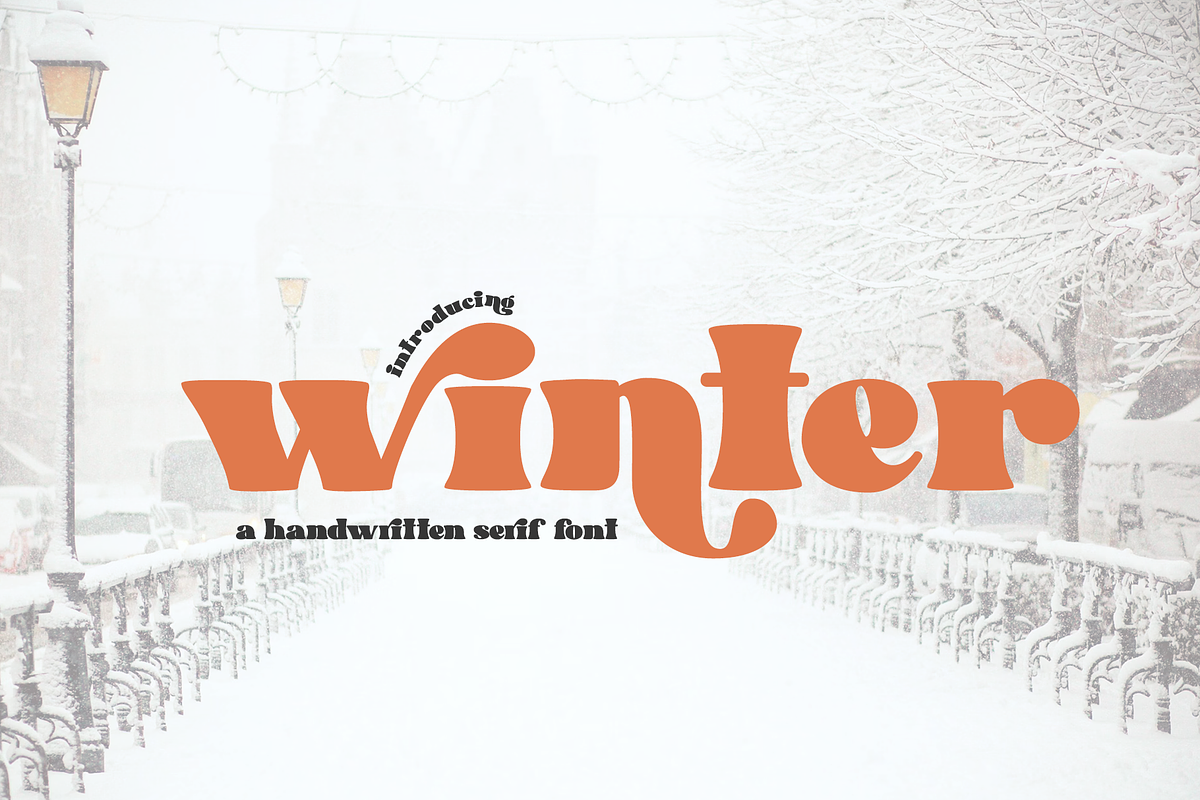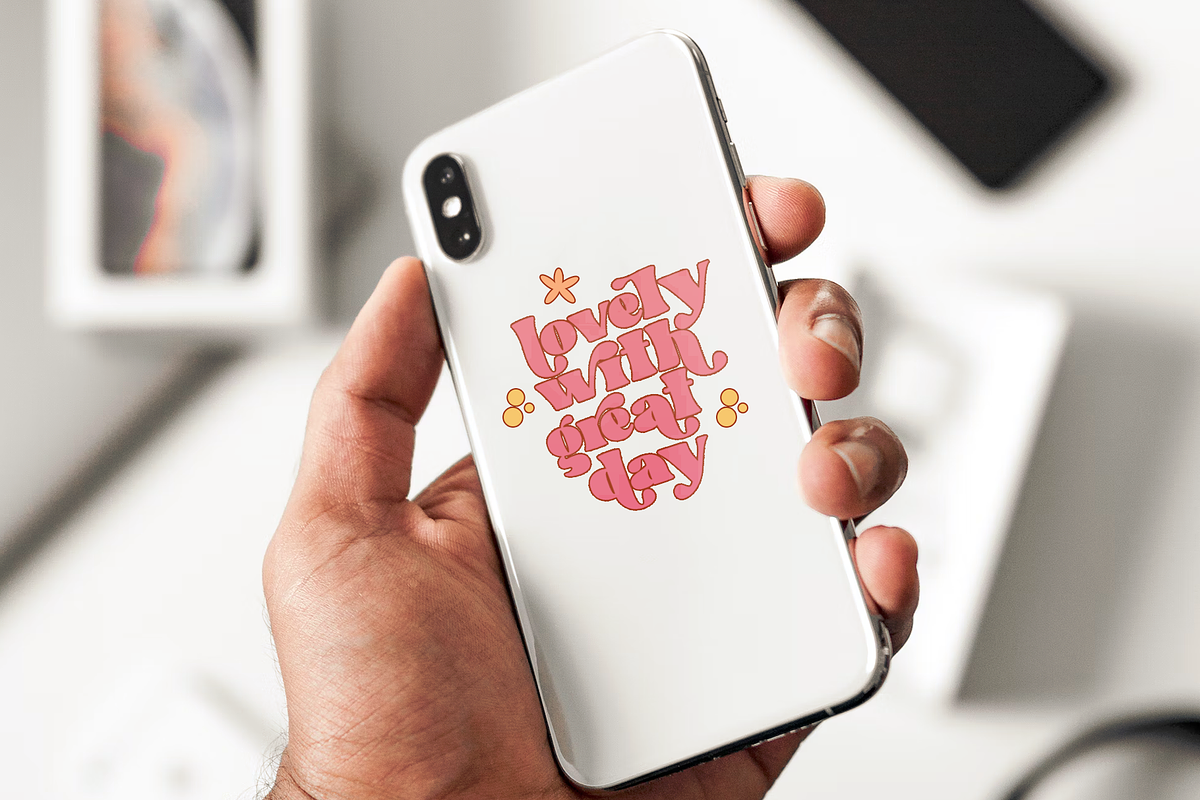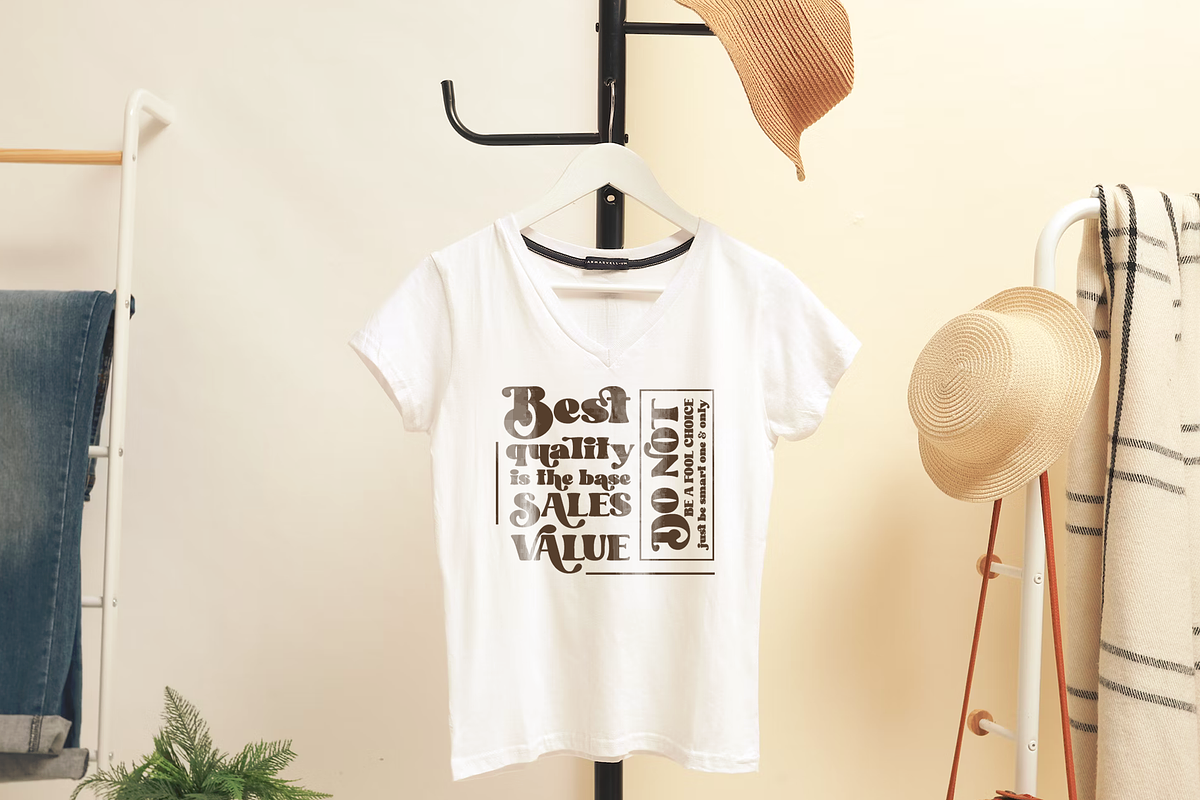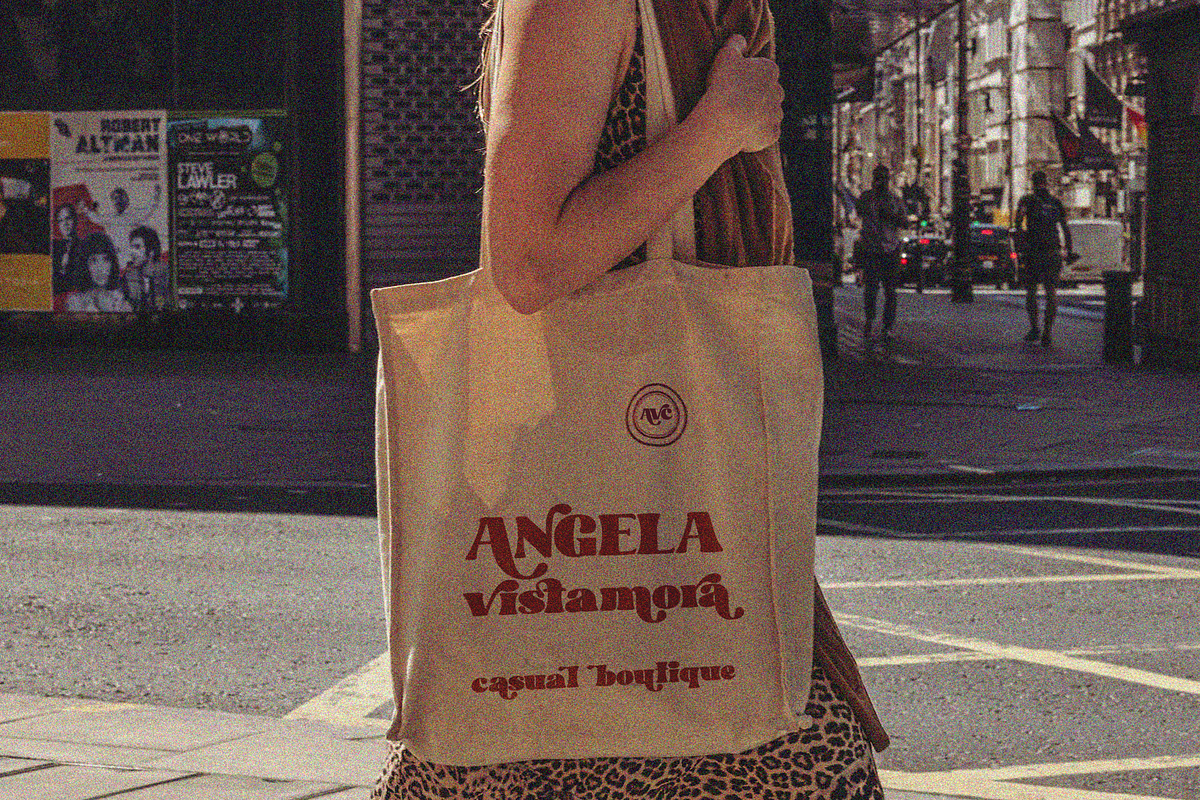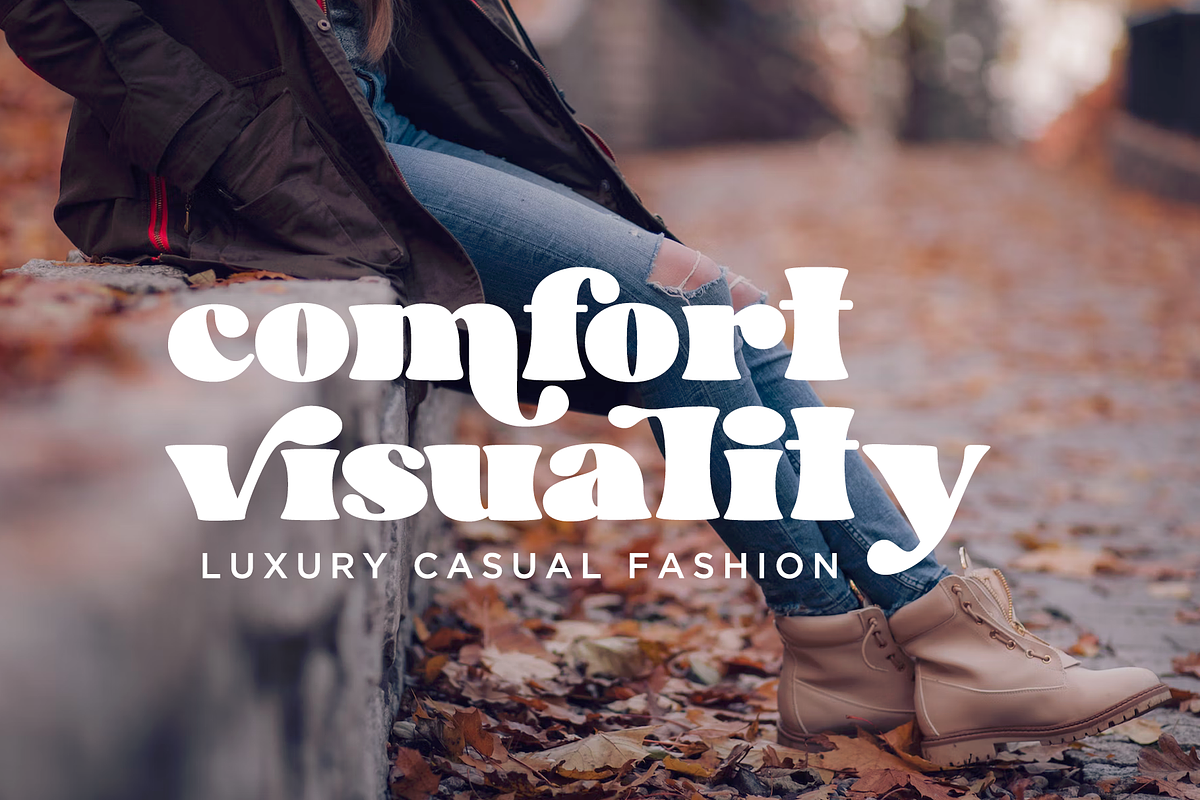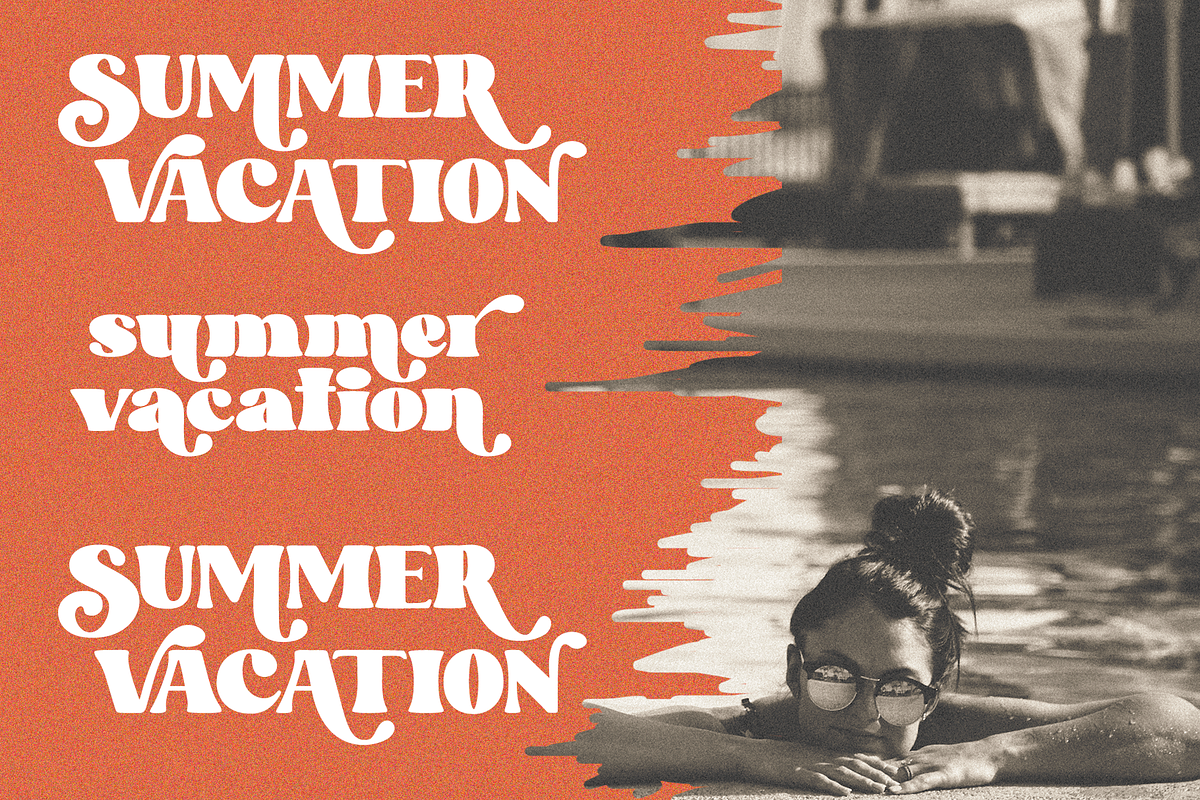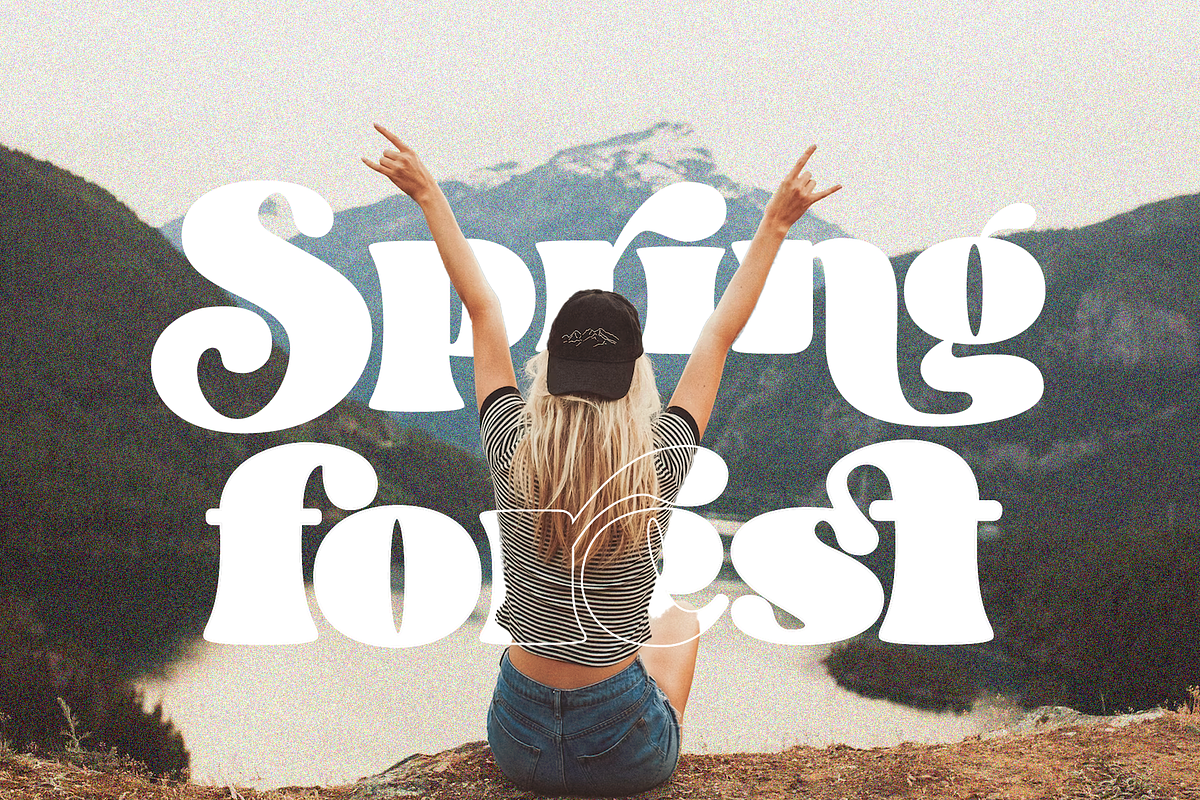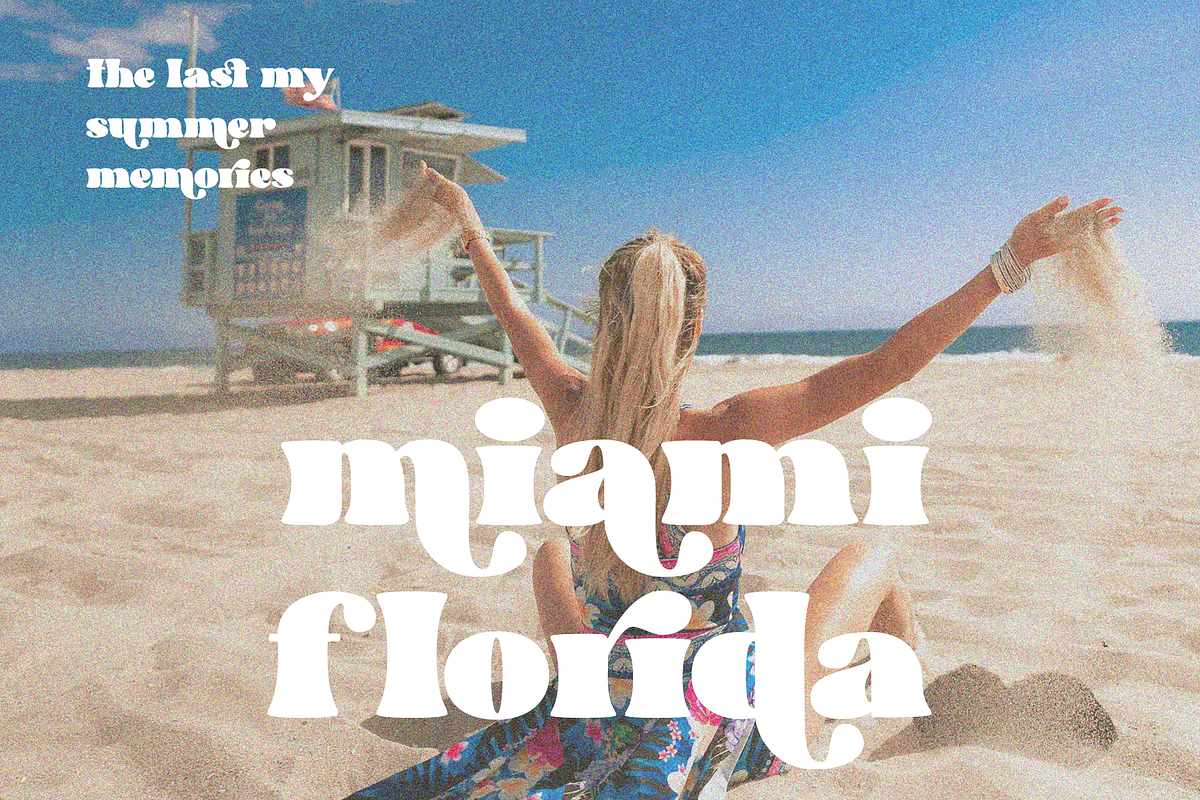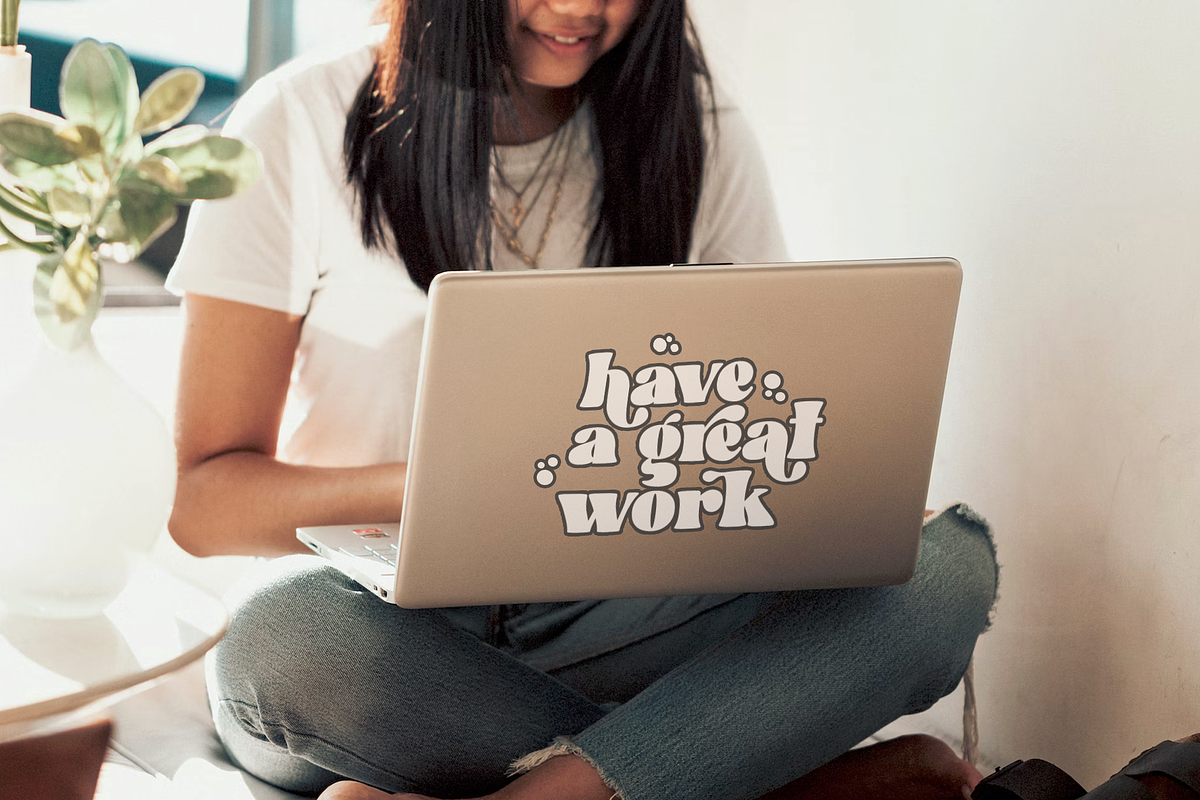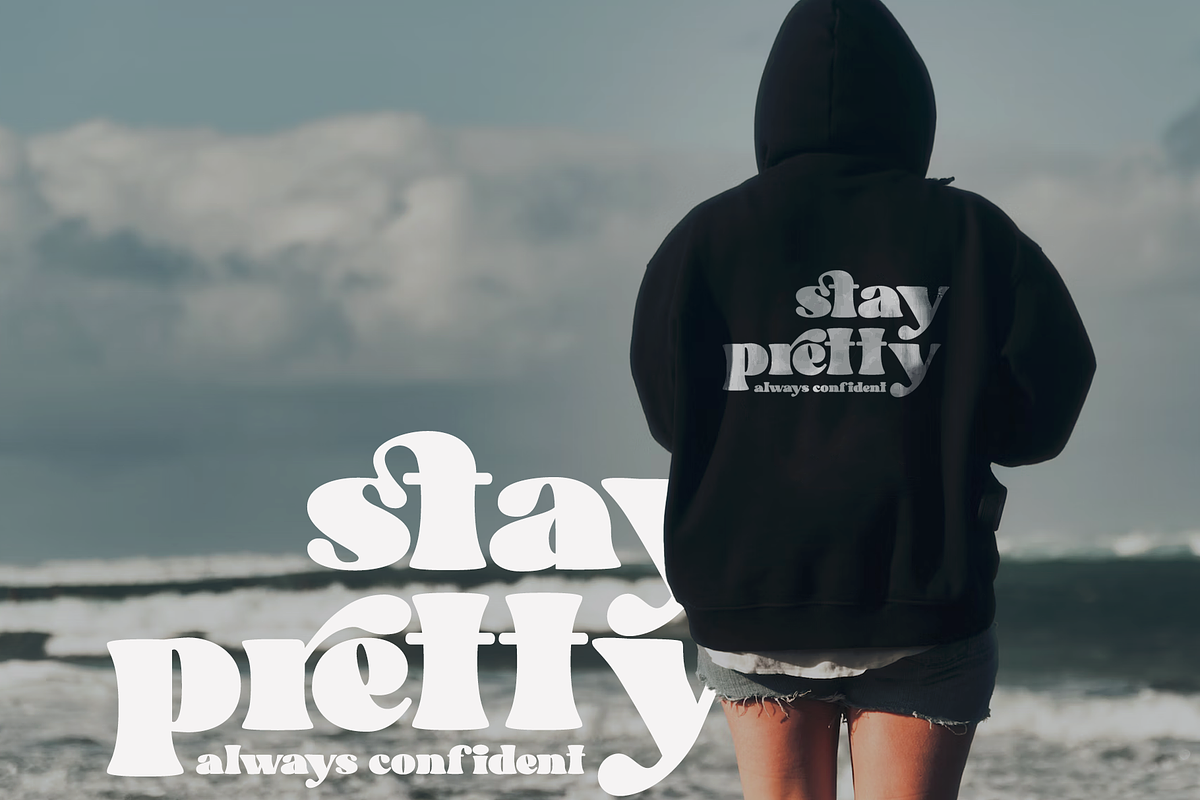
winter - Absonstype
winter is the Bold Serif display typeface with combine uppercase and lowercase looks and feel nice balanced. Provide with alternates and ligatures font in variant style make the design letter looks nice. Honestly it works perfectly for headlines, logos, posters, packaging, T-shirts and much more.
- Regular version
- Character set A-Z in Uppercase and Lowercase
- Alternates in Uppercase and Lowercase
- Ligatures in Lowercase
- Accented Characters
- Multiple Languages Supported